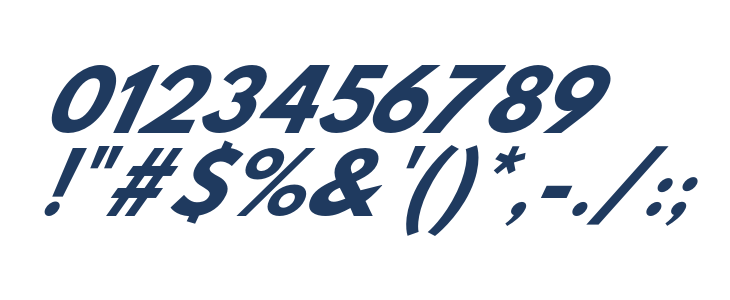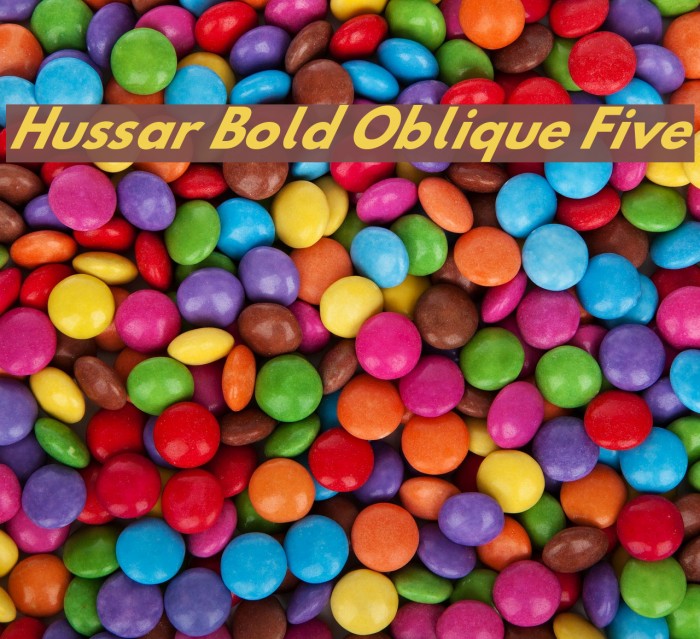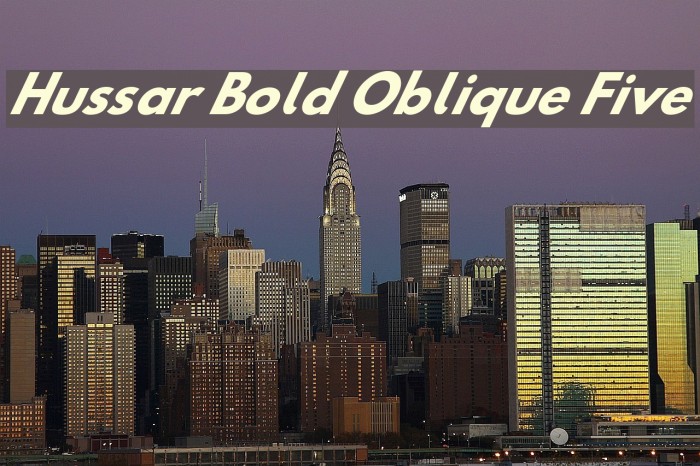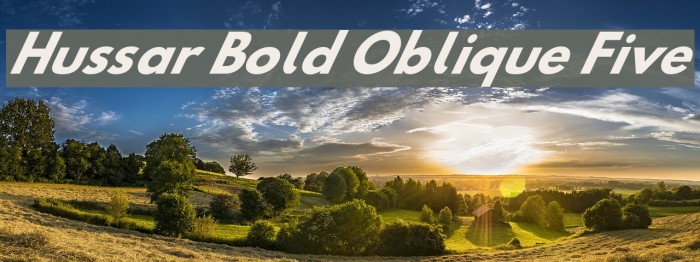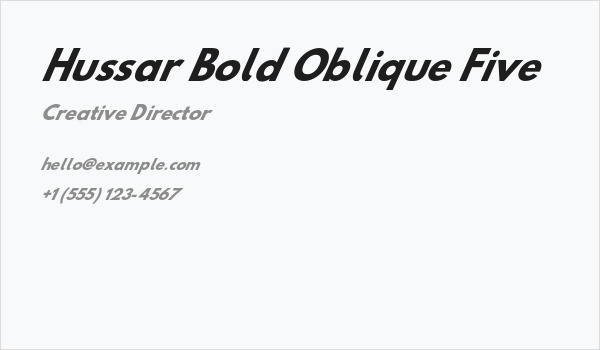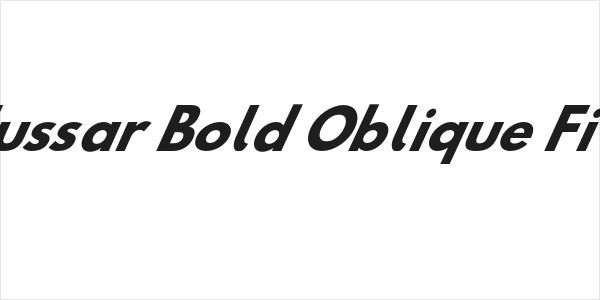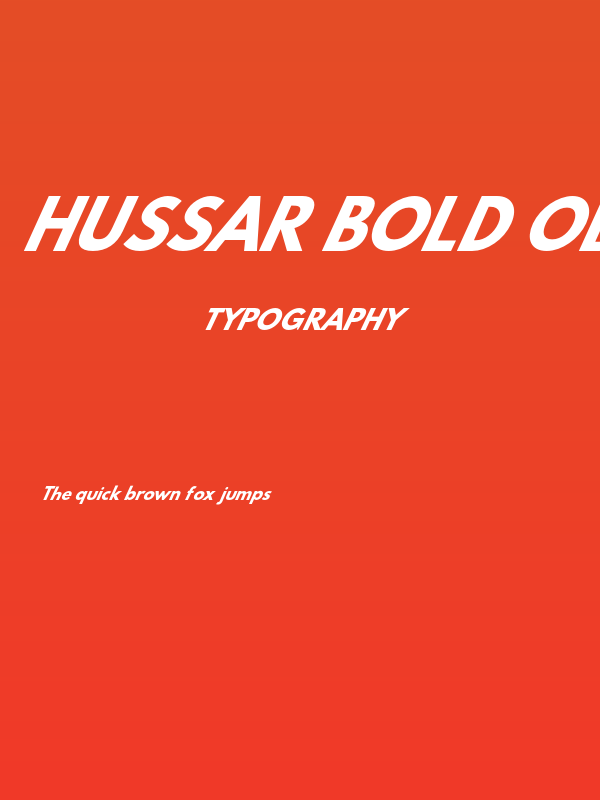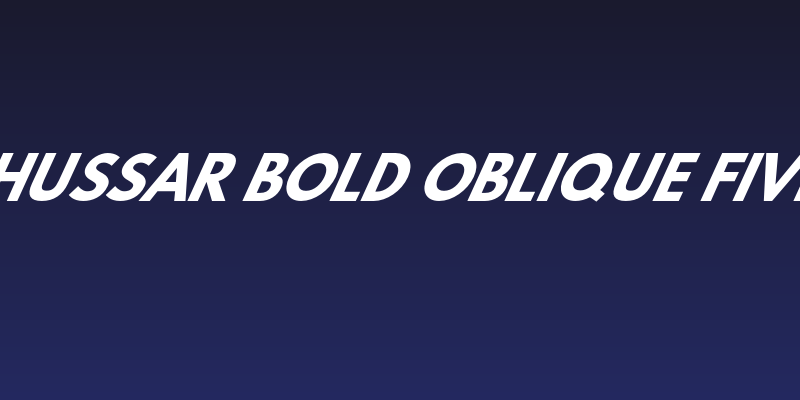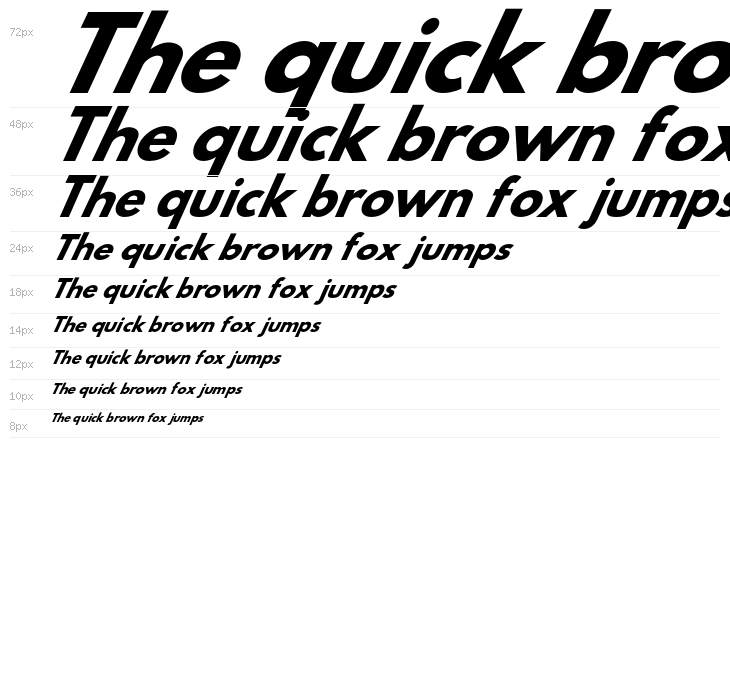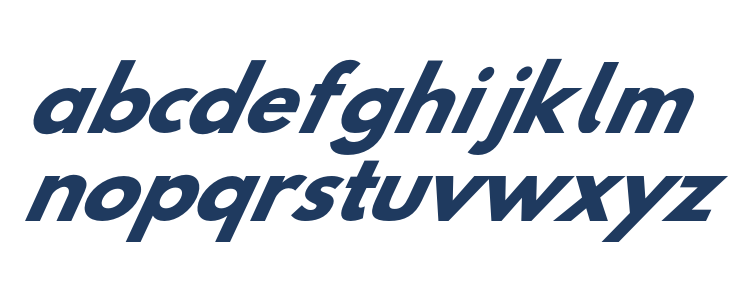
Hussar Bold Oblique Five Font
Hussar Bold Oblique Five Description
This font exhibits a bold and dynamic style with an oblique slant, giving it a sense of motion and energy. The characters are well-defined with a consistent stroke weight, contributing to its bold appearance. The uppercase and lowercase letters maintain a uniform slant, enhancing the cohesive look of the typeface. The numerals and special characters are designed to match the overall style, ensuring versatility across different uses. The font's strong presence makes it suitable for impactful designs.
Proposed ProjectsIdeal for branding, advertising, headlines, and posters where a strong and modern impression is desired.